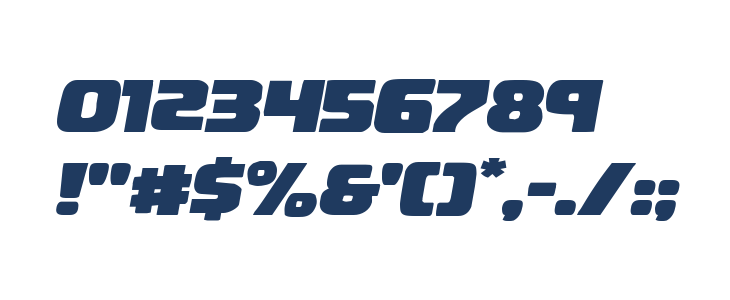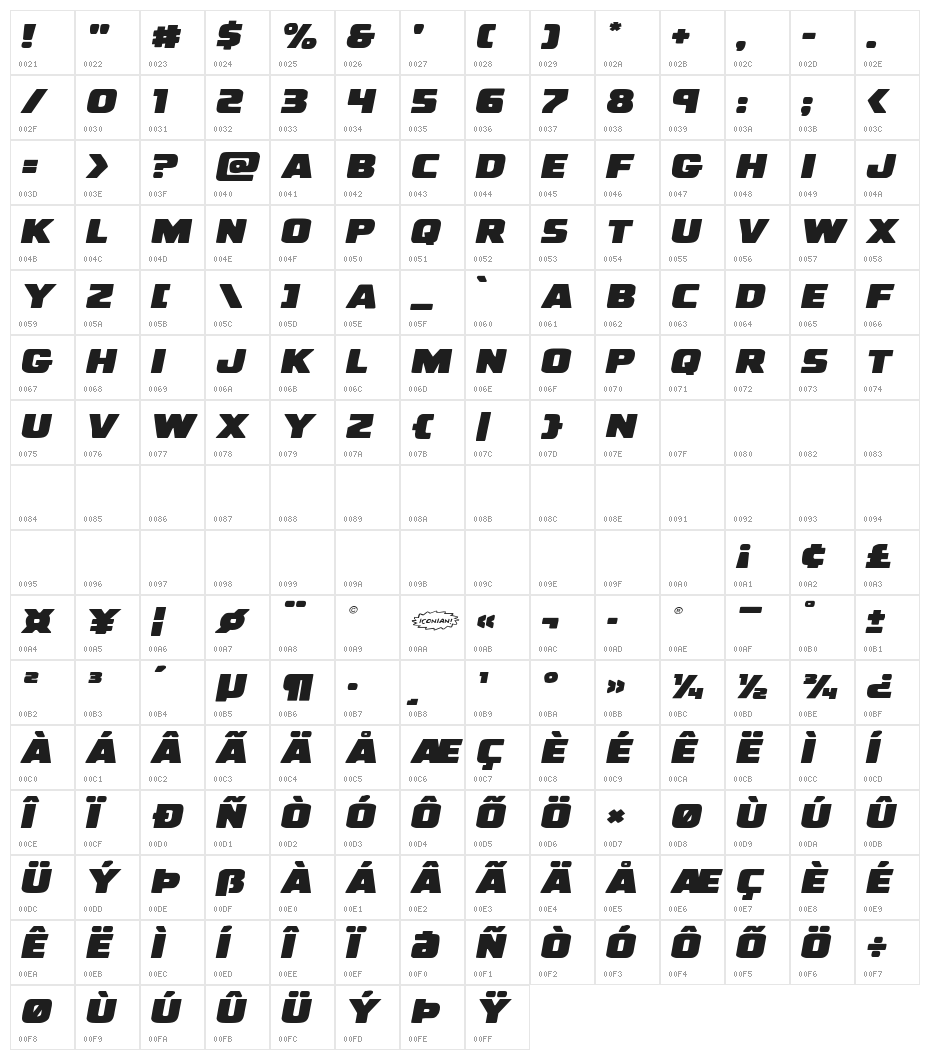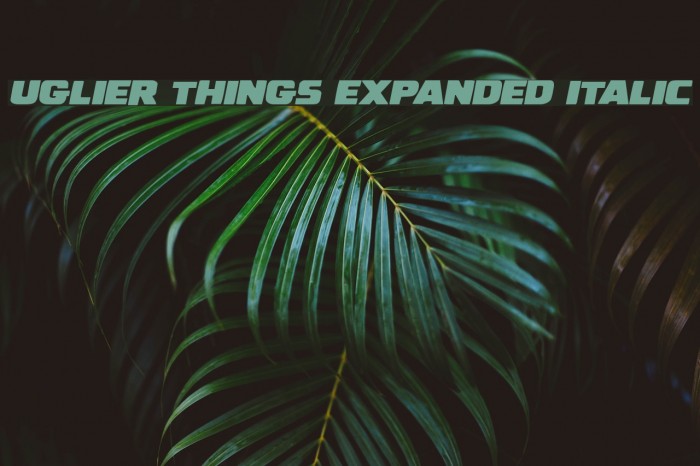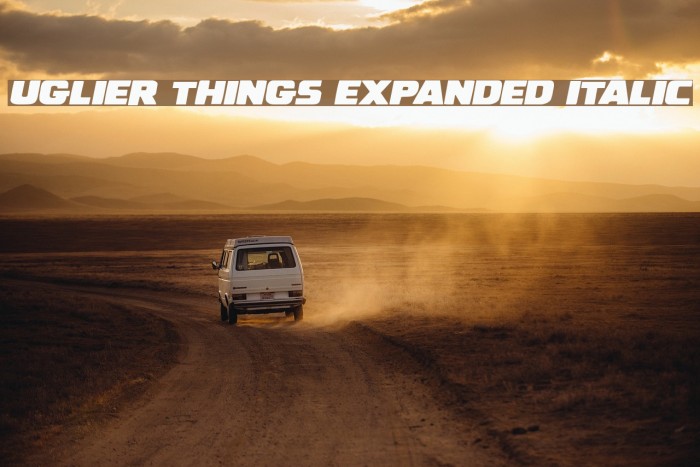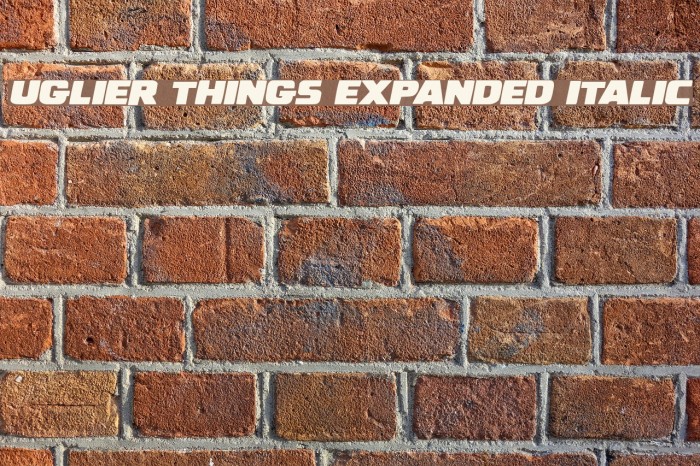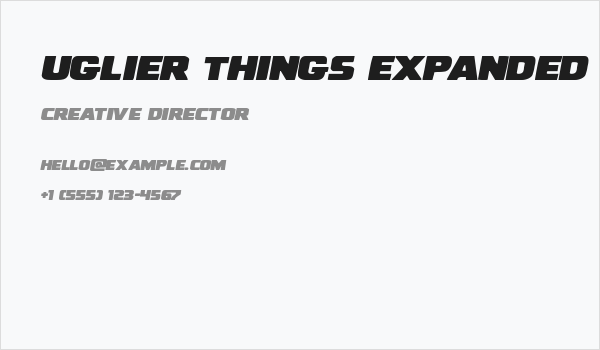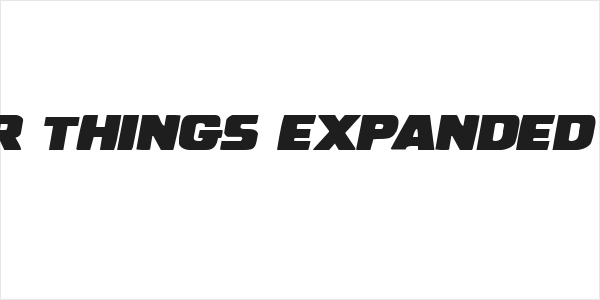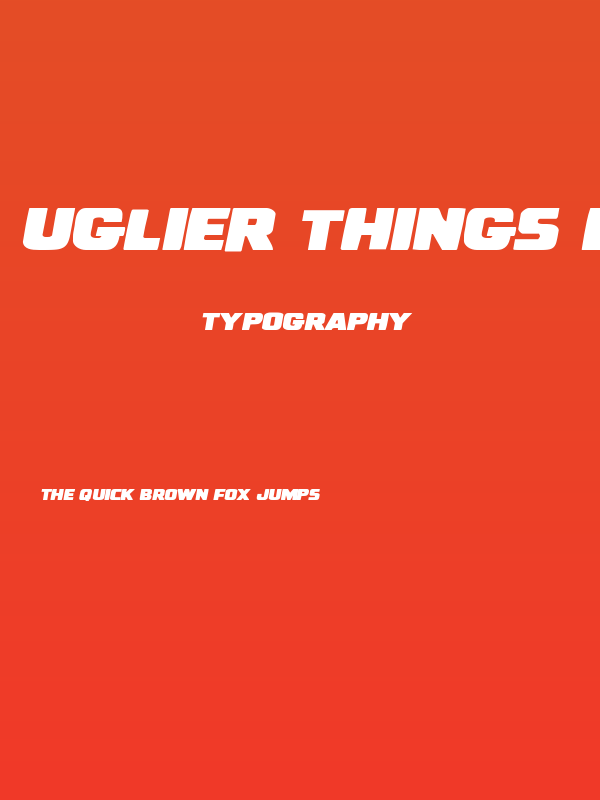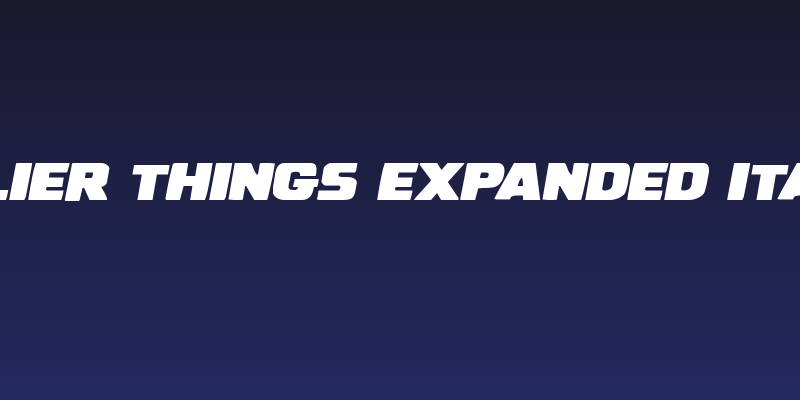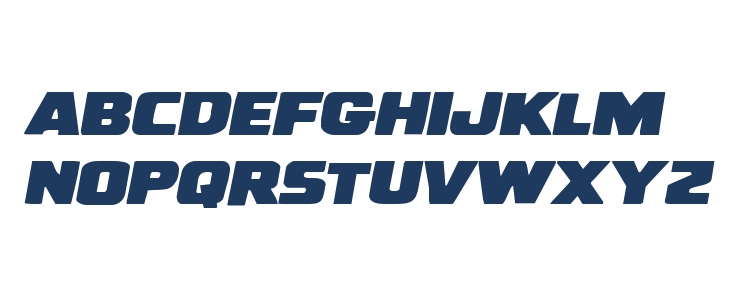
Uglier Things Expanded Italic Font
Uglier Things Expanded Italic Description
This font features a bold and dynamic style with an italic slant, giving it a sense of motion and energy. The characters are expanded, providing a wide and impactful presence. The uppercase and lowercase letters maintain a consistent thickness, contributing to a uniform appearance. The numbers and special characters are designed to match the boldness and slant of the letters, ensuring cohesive use across different contexts. This font's strong visual impact makes it suitable for attention-grabbing designs.
Proposed ProjectsIdeal for sports branding, dynamic posters, video game titles, and action-themed designs.